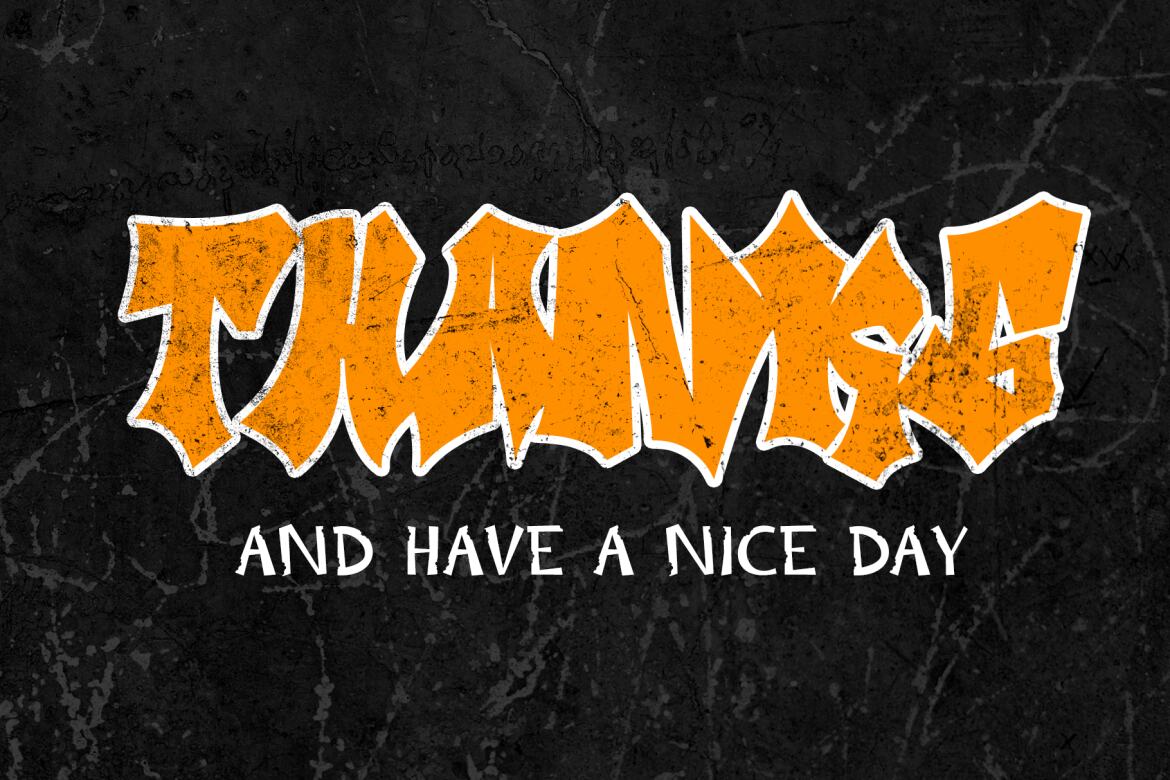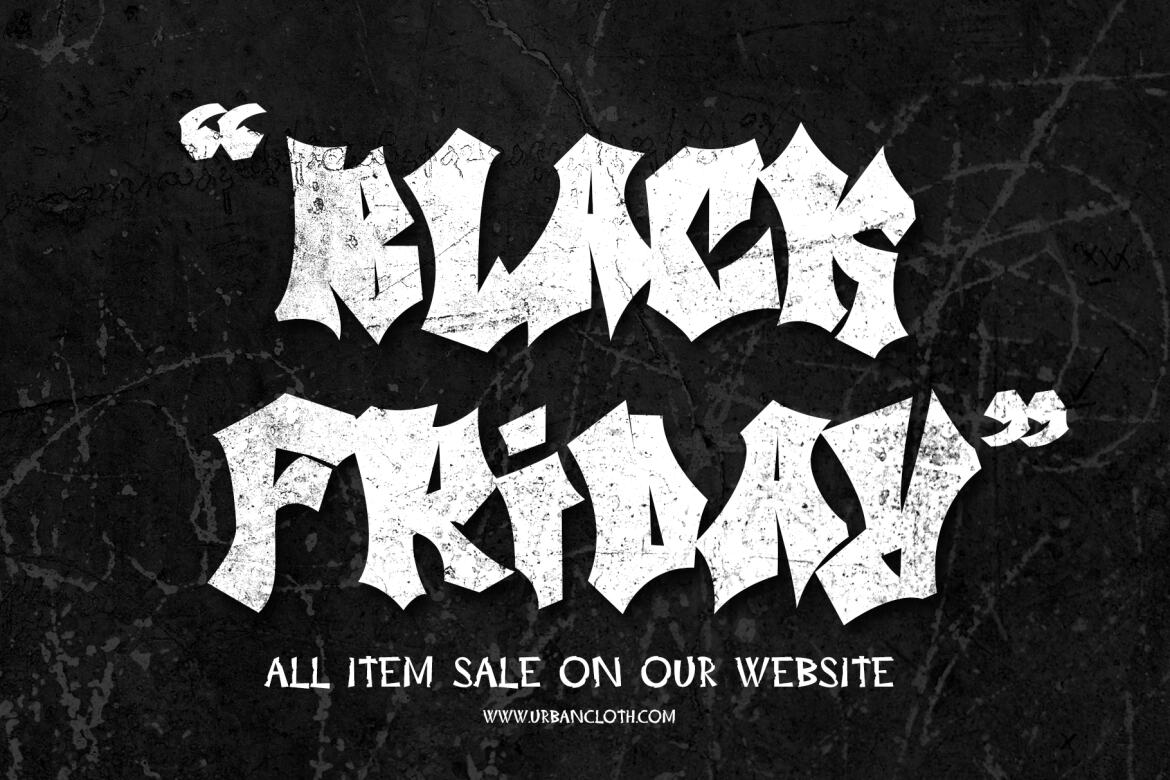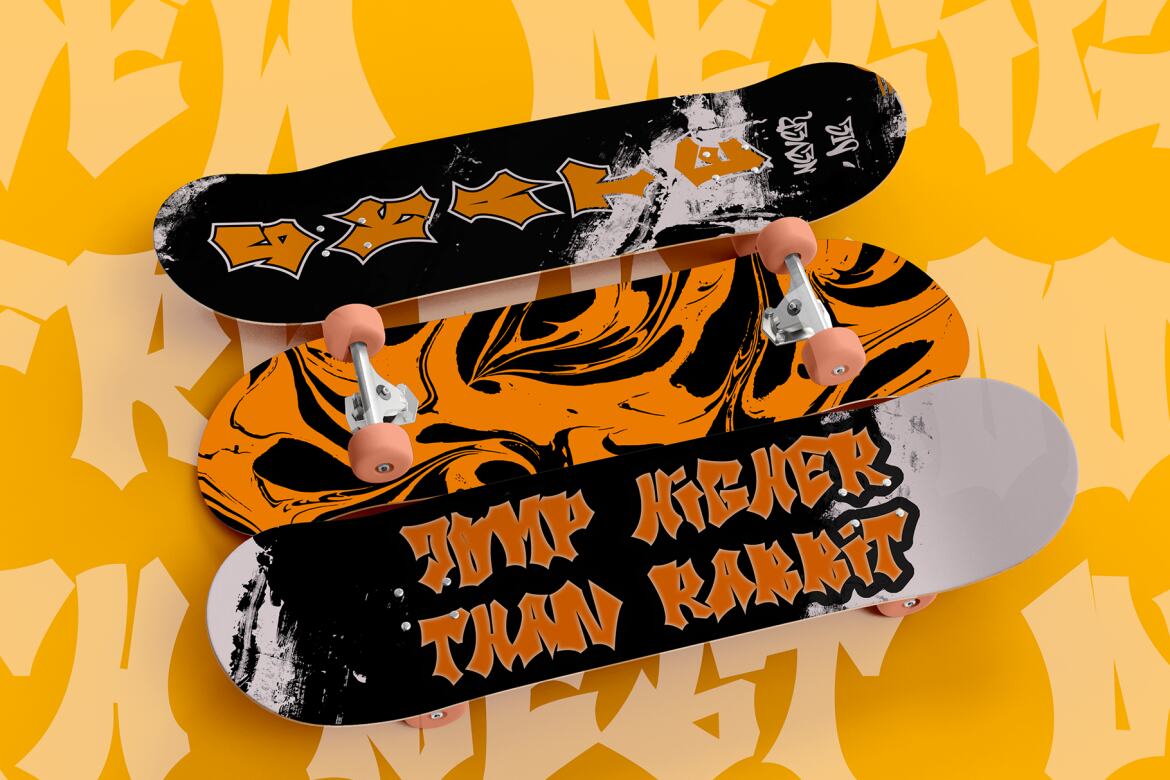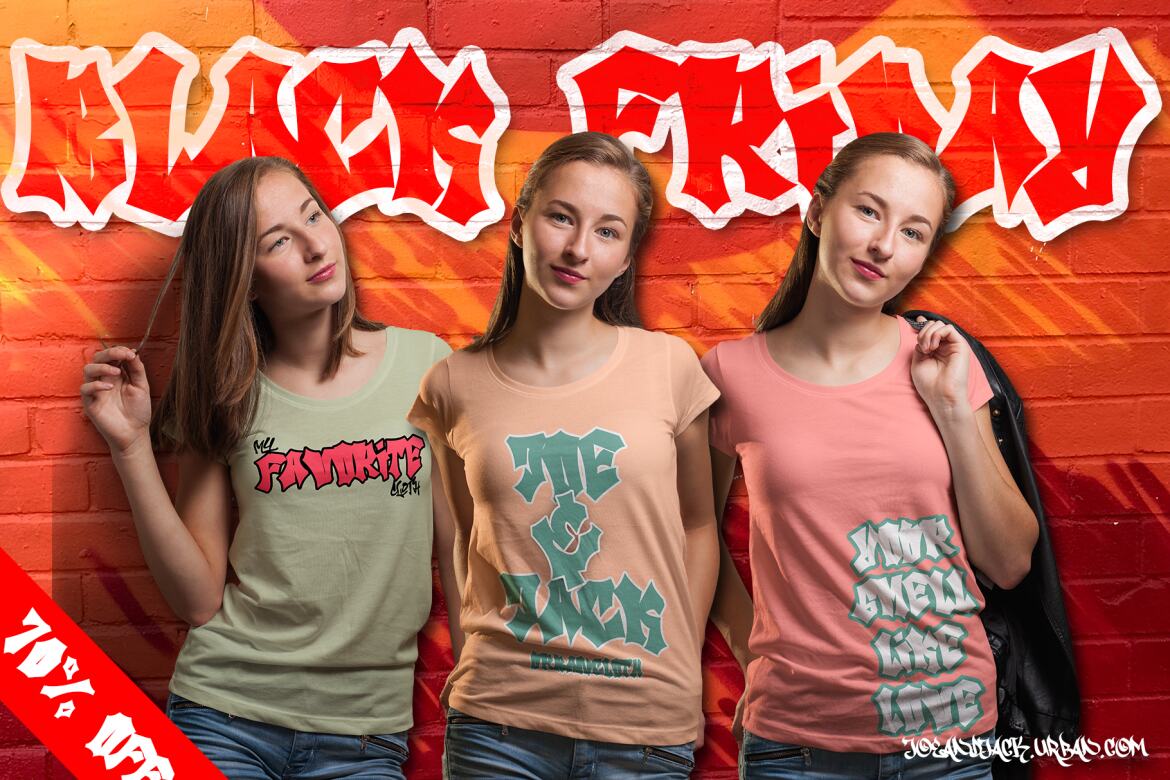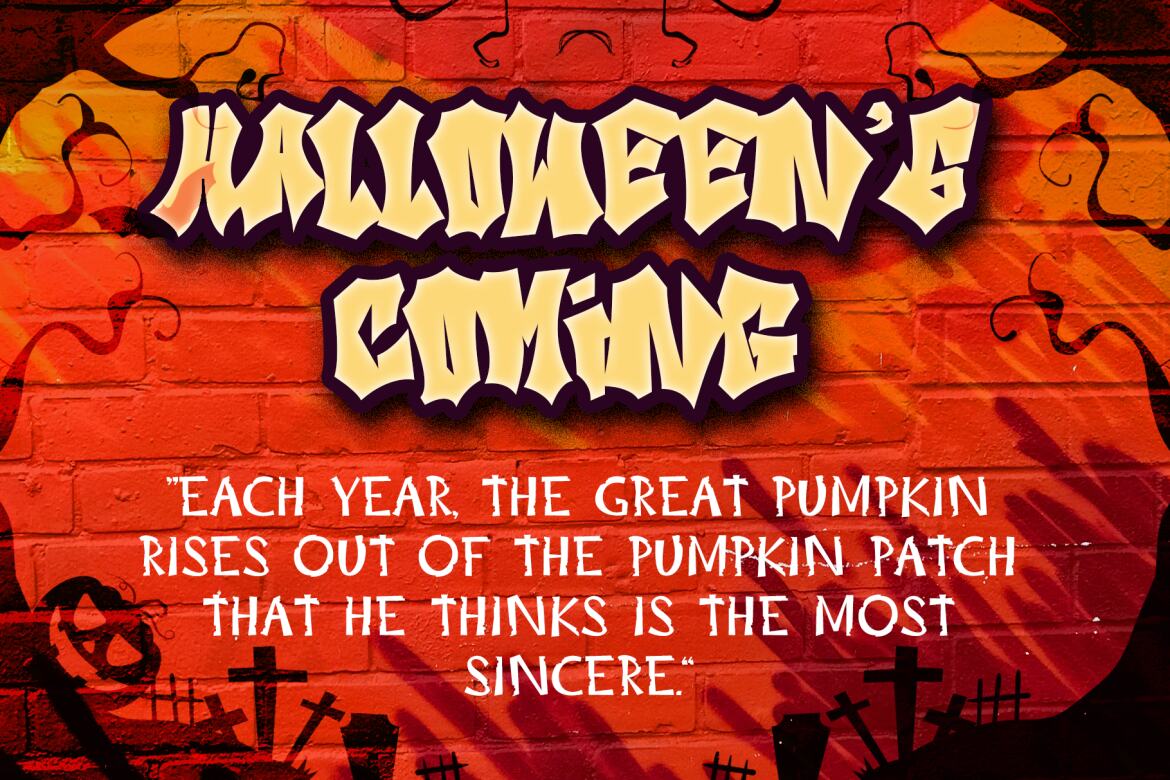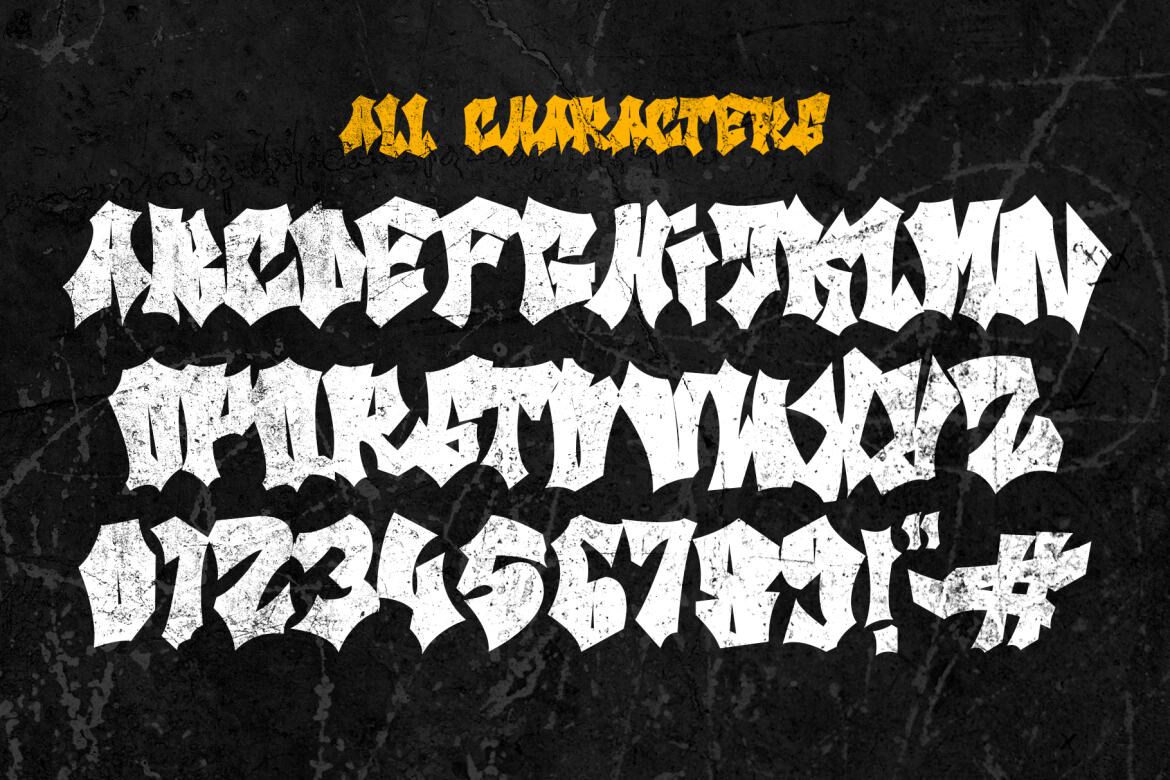
Bat Liar - Sharp Headline FREE Font
"Bat Liar"
Bat Liar is a spectacular decorative font with a Sharpness style and like a wings of bat for your design look awesome. It will elevate a wide range of design projects to the highest level, be it branding, headings, wedding designs, invitations, signatures, logotype, wall art illustration, apparel, labels, and much more!